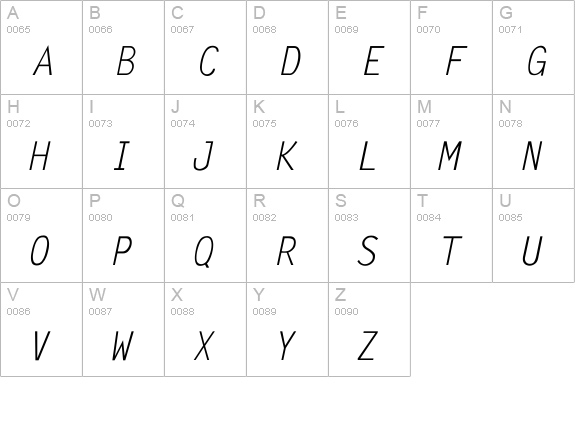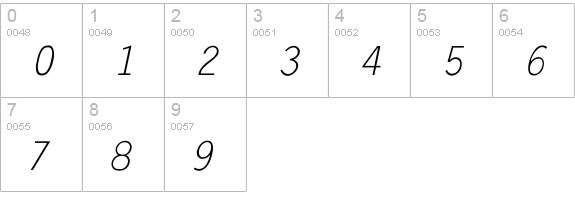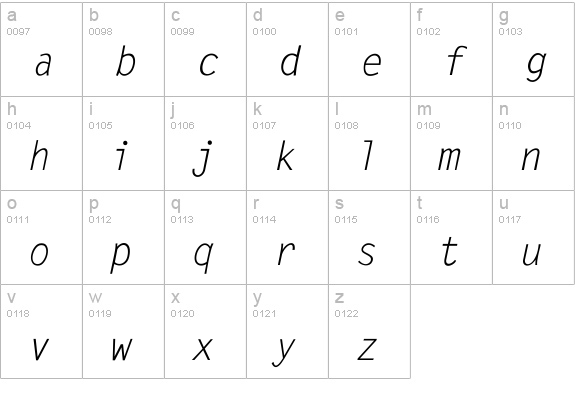
LetterGothic-Italic is a distinctive, italic variant in the LetterGothic typeface family \xE2\x80\x94 well suited to design and typography projects.
Introducing LetterGothic-Italic, a captivating and elegant font that effortlessly blends modernity with a touch of timeless sophistication. Its distinctive slanted style adds a unique flair to any project, making it perfect for both professional and creative endeavors. With its clean lines and graceful curves, LetterGothic-Italic exudes a sense of refinement and versatility. Whether used in headlines, logos, or body text, this font captivates readers with its subtle yet impactful presence. Its italicized form adds a dynamic element, evoking a sense of movement and energy. Not only does LetterGothic-Italic possess visual appeal, but it also offers practicality and ease of use. The carefully crafted letterforms ensure legibility, even at smaller sizes, making it suitable for various applications across print and digital media. One of the most enticing aspects of LetterGothic-Italic is that it is freely available to download at FontsMarket.com. This means that you can easily incorporate this exceptional font into your design projects without any cost. FontsMarket.com provides a reliable platform where you can conveniently access this font and explore a wide range of other high-quality fonts to enhance your creative endeavors. Embrace the allure of LetterGothic-Italic and elevate your designs to new heights. Its captivating style, combined with its freely available accessibility, makes it an ideal choice for designers, typographers, and creatives alike. Download LetterGothic-Italic today and unlock the potential to create stunning visuals that leave a lasting impression.